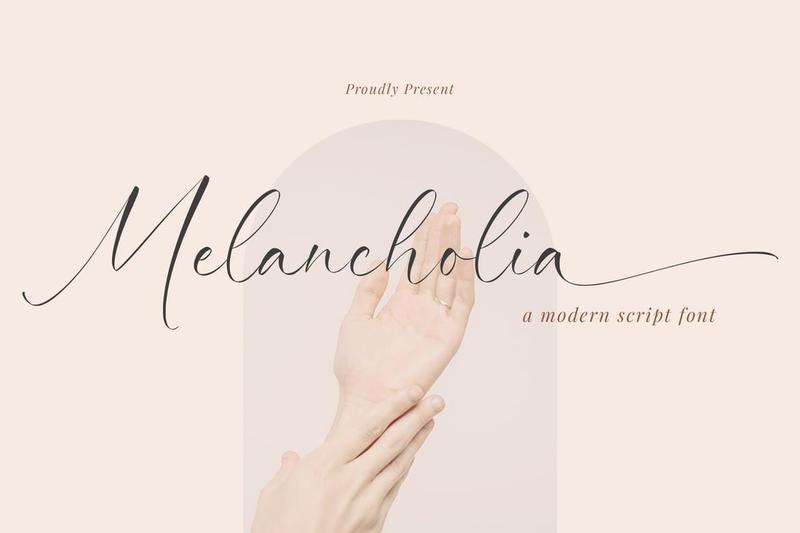
Melancholia Font PMDUWVD
Melancholia A Modern Script Font, which was created with great care and specially created for you.
Melancholia is perfect for product packaging, branding project, megazine, social media, wedding, or just used to express words above the background.